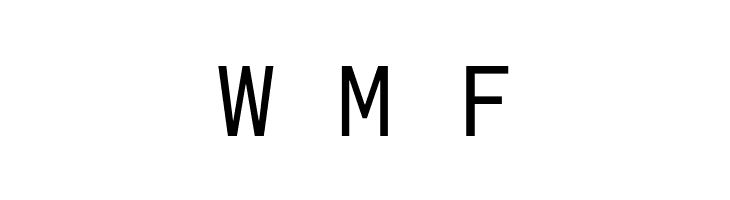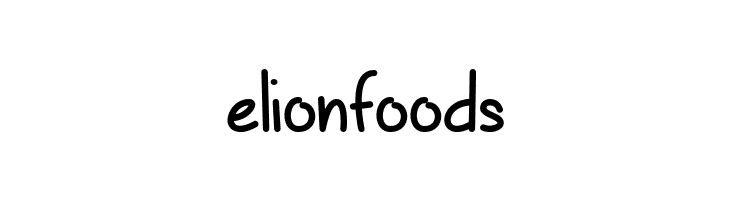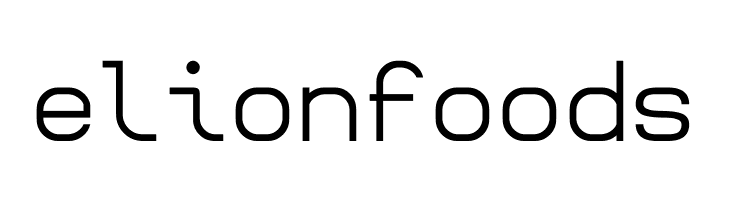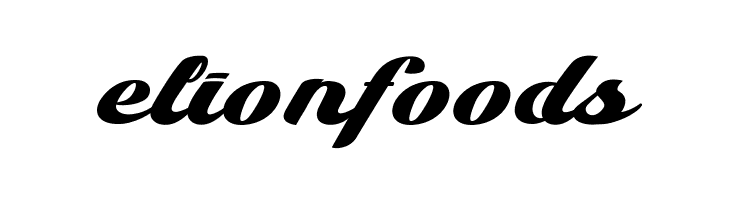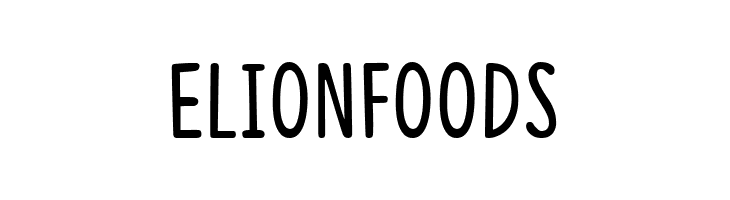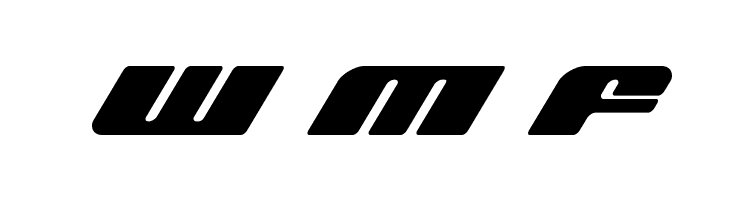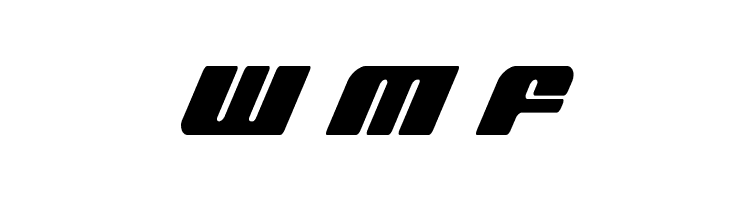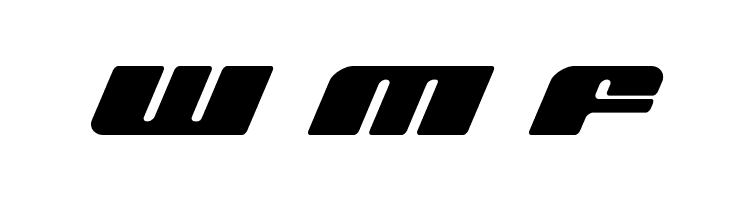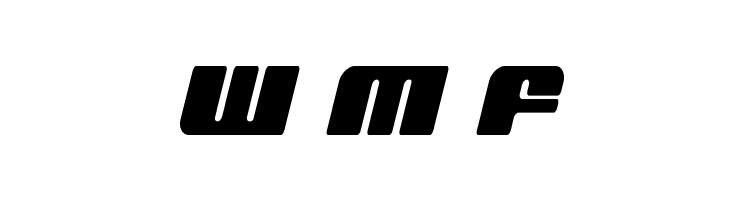
• Calcutta SemiBold Regular
A modern sans-serif font with a semi-bold weight, offering clarity and versatility.
• Calling Angels Personal Use
An elegant and ornate script font with flowing, interconnected letters and decorative flourishes.
• Calling Code Regular
A modern, geometric sans-serif font with balanced spacing and clear readability.
• Calling Code Regular
A modern, geometric sans-serif font with clean lines and uniform stroke width.
• Calling Heart
A bold, elegant script font with flowing, interconnected letters.
• Calypsoka
A bold, brush-style font with dynamic strokes and a modern, artistic flair.
• Calypsoka One
A bold, brush-style font with dynamic, expressive strokes.
• Camargue Serif Regular
A classic serif font with elegant, slender characters and distinct serifs.
• Caminata-One
• Camosport
• Camosport Outline
• CampgroundFreeDemo-regular
A flowing, cursive font with interconnected characters and smooth curves.
• Canada
A Canada-themed icon font with bold, simple pictograms.
• CandaceDemo
A bold, playful font with a hand-drawn, uniform style.
• Candy Shop Black Personal Use
A bold, cursive font with playful, interconnected letters and high contrast.
• Candy Shop Contour Personal Use
A bold, dynamic script font with interconnected letters and a playful style.
• Candy Shop Personal Use
A bold, cursive font with a playful and dynamic style.
• CandyPop!
A playful, candy-inspired font with bold, rounded characters and a three-dimensional effect.
• Candys R Grozz 2.0